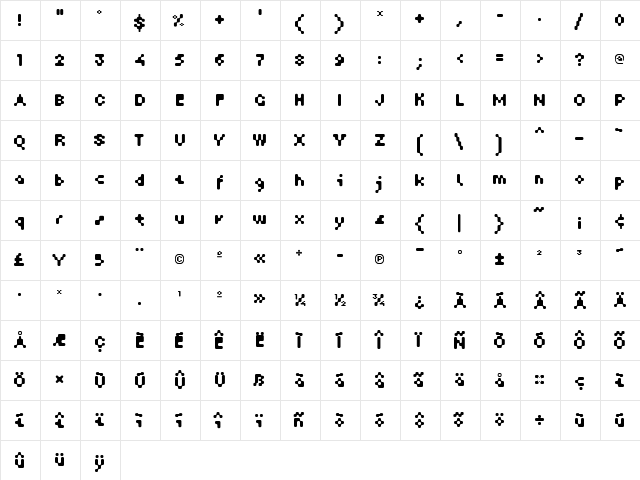
MoonbaseAlpha Medium
| Foundry | Copr. Cornell Windlin fot FUSE by FontShop International |
Design Context for MoonbaseAlpha Typeface
MoonbaseAlpha offers clean, dependable letterforms without strong stylistic allegiance, making it a practical choice for designers who need flexibility.